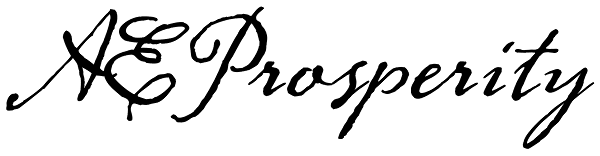
AE Prosperity
Well suited for headlines, packaging and display applications, AE Prosperity will be a robust and versatile addition to your script library. It’s purposefully designed to infer the visual connections of letters for a hand-lettered feel. Some...